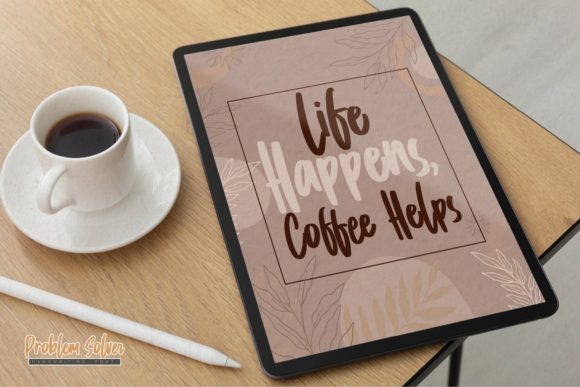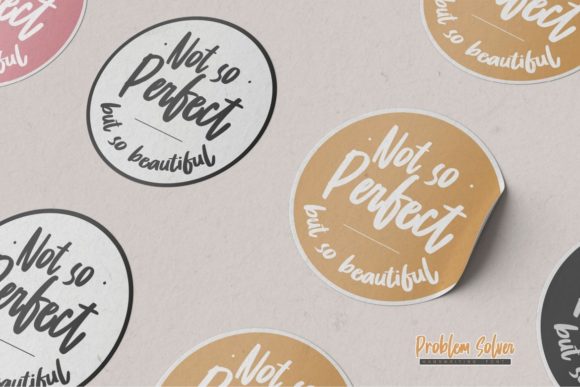
About Problem Solver Font
Problem Solver is a simple, relaxed and adaptable handwritten font. Its informal style and casual vibe will make this font a go-to choice for each of your creations. This font is PUA encoded which means you can access all glyphs and swashes with ease!